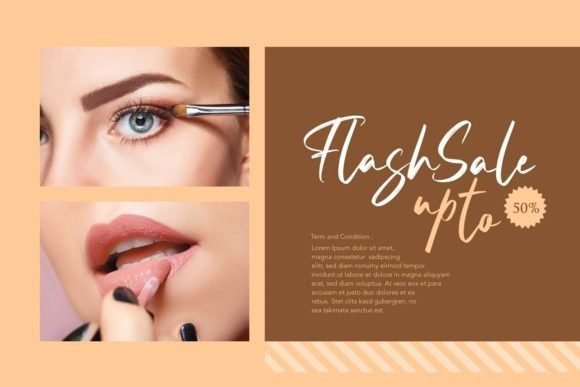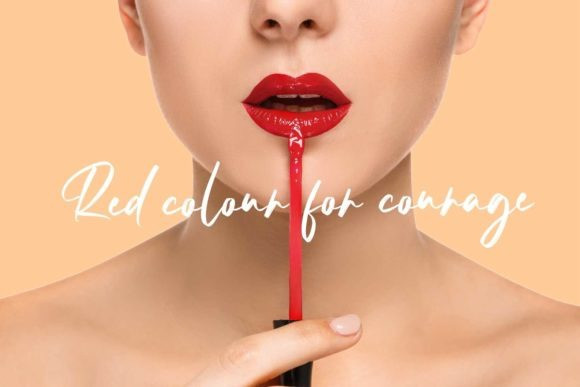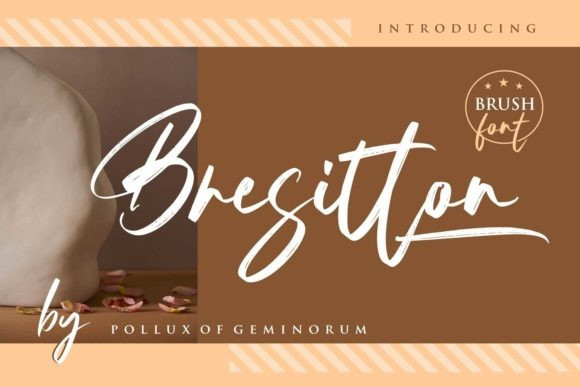
Bresitton Script Font
Bresitton Script Font is a relaxed brushed script font that has been designed to look sleek, gorgeous and fit. This font is perfect to be used in any graphic design projects, suitable for Social Media content, product packaging, poster, banner. This package also includes swash and ligatures, so you have many options to get a better result.